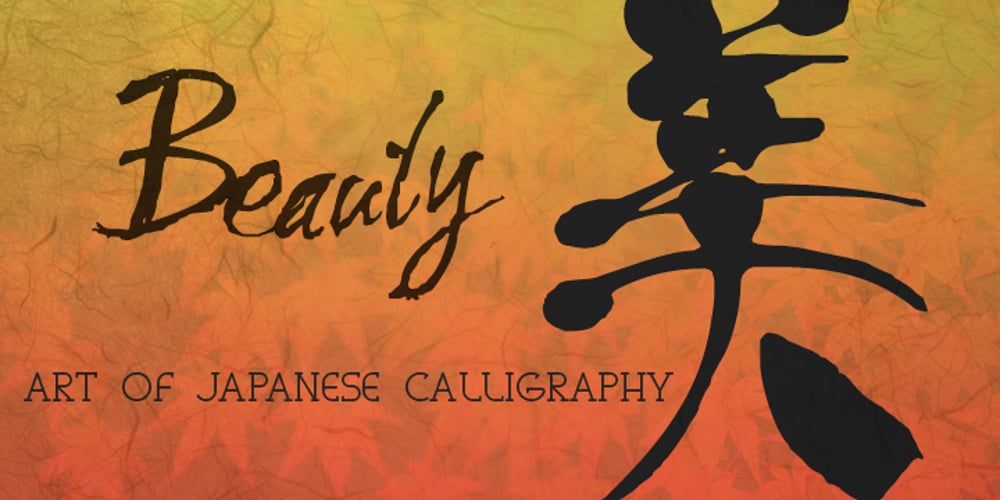
Art Of Japanese Calligraphy Font Family was designed by Natsuko Hayashida and published by Okaycat. Art Of Japanese Calligraphy contains 1 styles and family package options. Art of Japanese Calligraphy is a Kanji font. This is a collaboration with experienced calligrapher, Shigeru Nomura. Developed directly from the hand-written Kanji (Japanese/Chinese Characters). Perfect for anywhere authentic Kanji is needed.